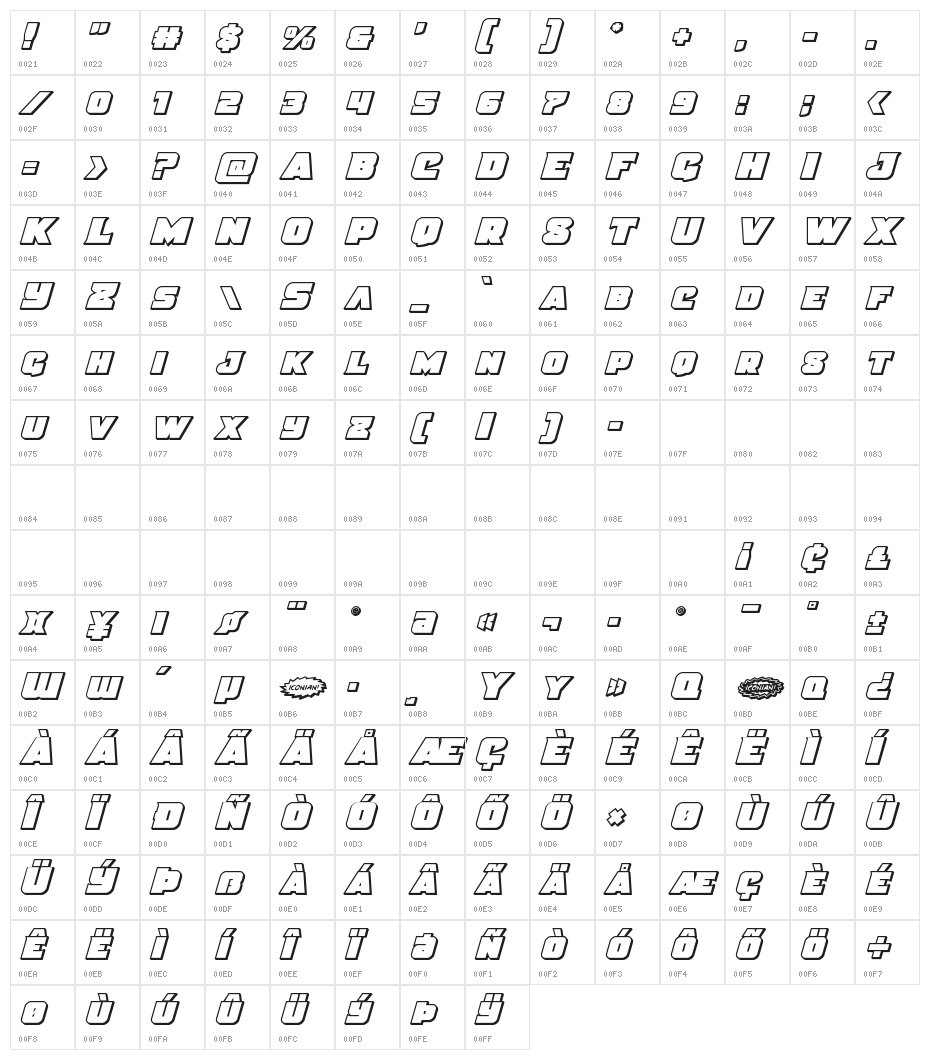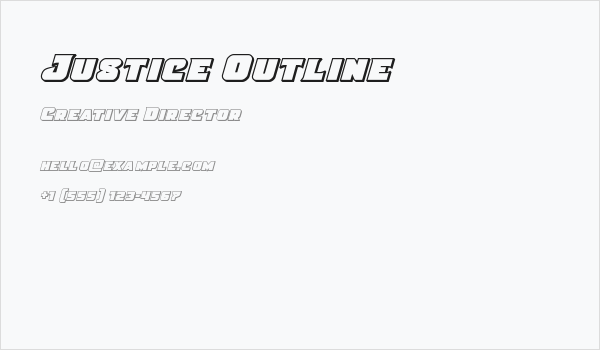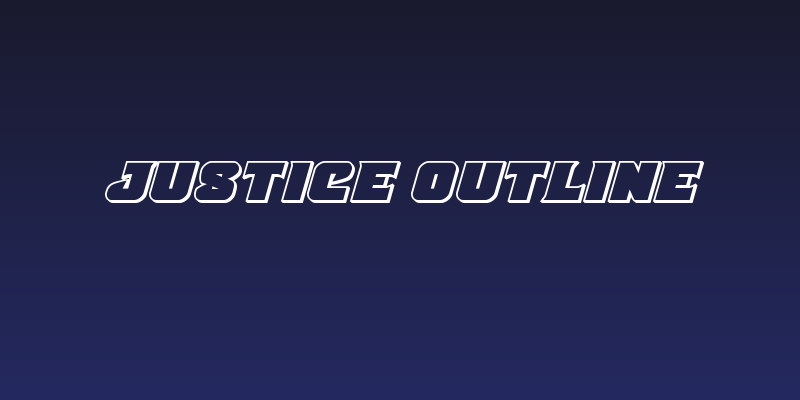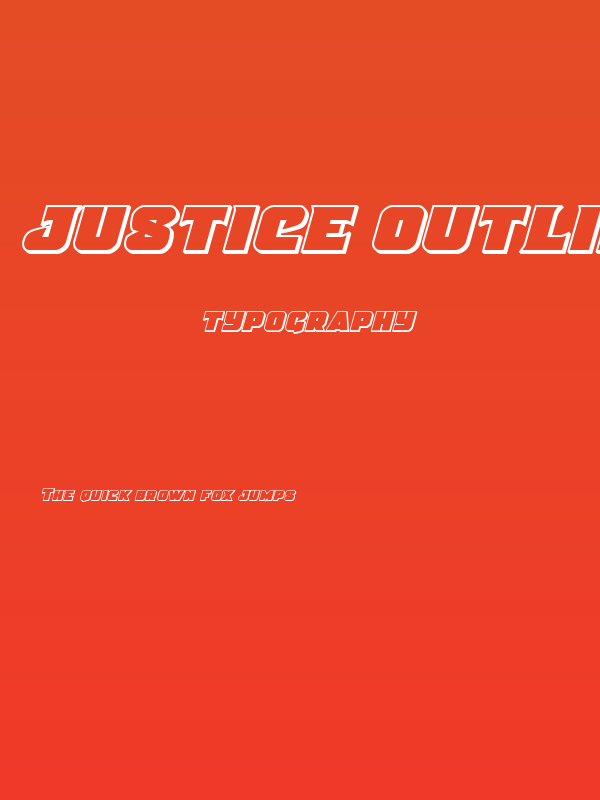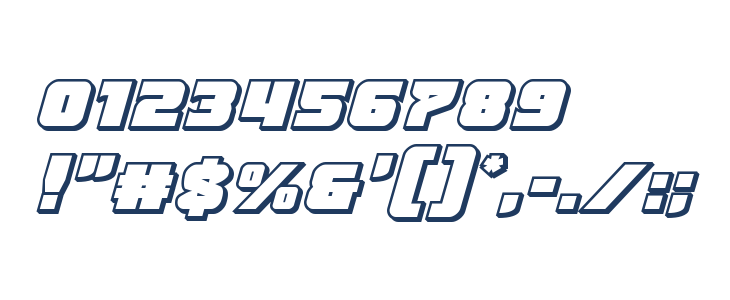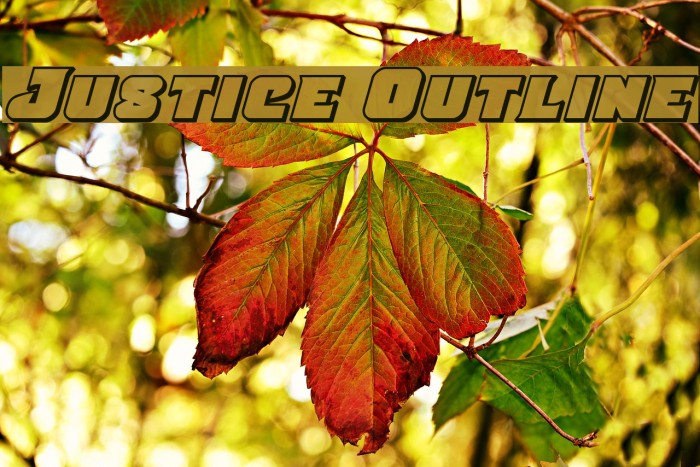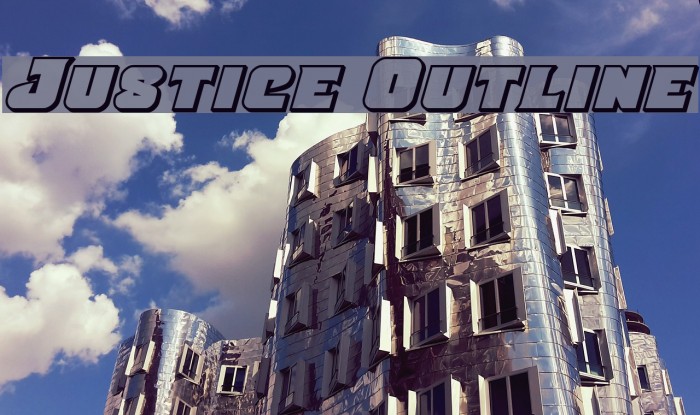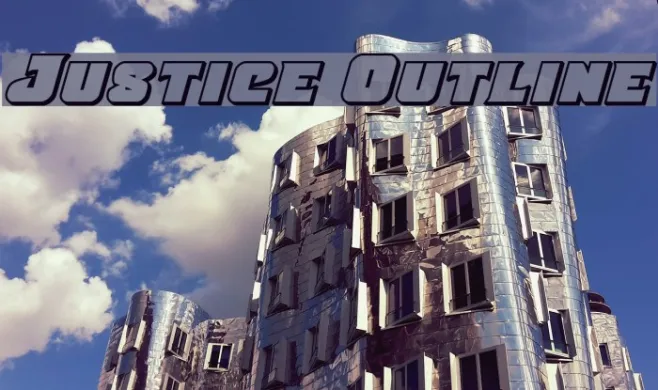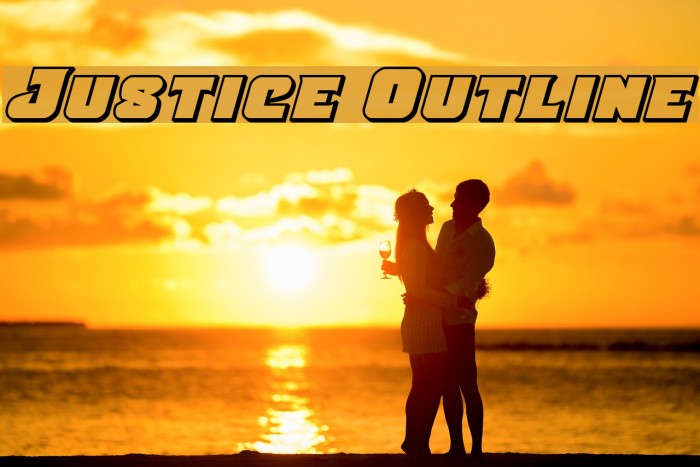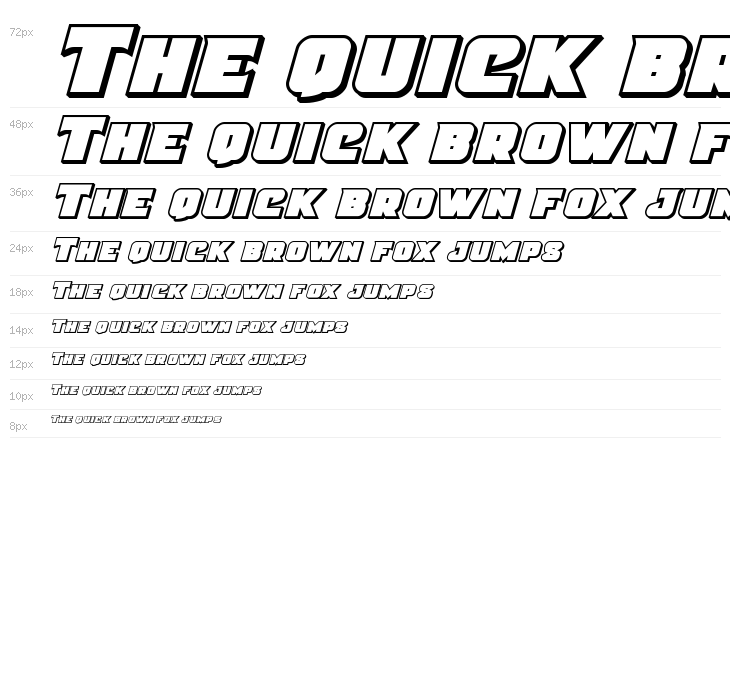
Justice Outline Font
Justice Outline Description
This font features bold, uppercase letters with a distinct outline that gives it a strong, impactful presence. The characters are designed with a slight slant, adding a dynamic and energetic feel. The outline effect creates a sense of depth, making the letters stand out prominently. The font includes a complete set of uppercase letters, numbers, and a variety of special characters, all maintaining the same bold and outlined style. Its geometric shapes and clean lines contribute to a modern and assertive appearance, suitable for attention-grabbing designs.
| Proposed Projects | Ideal for headlines, posters, logos, and any design requiring a strong visual impact. |